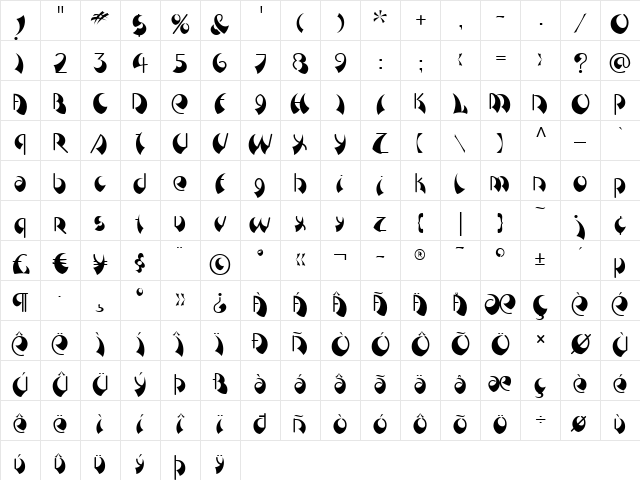
Complete Breeze LT Regular glyph index. Displaying only characters natively supported by Breeze LT Regular font.
Breeze LT is a composed and adaptable typeface that performs quietly and consistently across a wide range of design contexts. Its slender proportions lend an understated elegance to any composition.